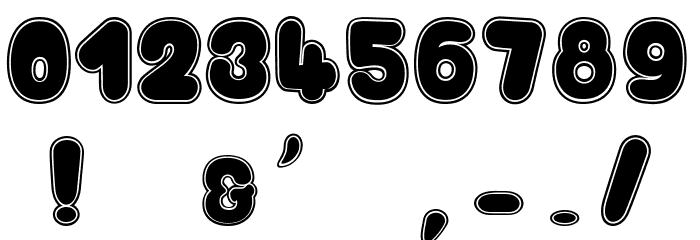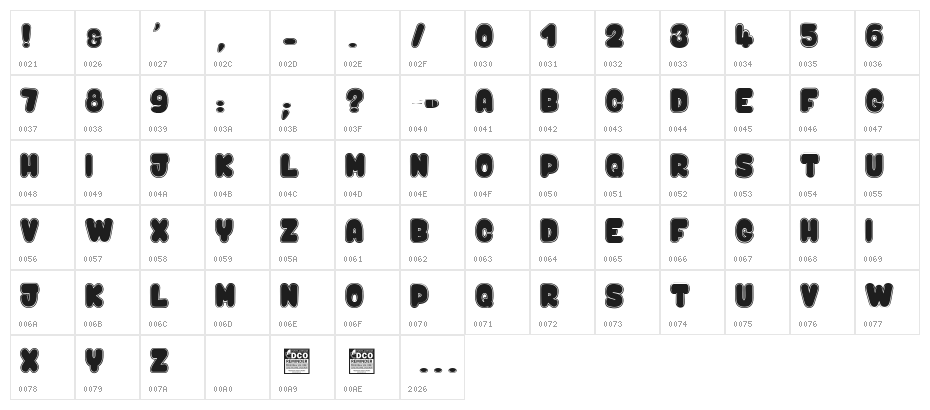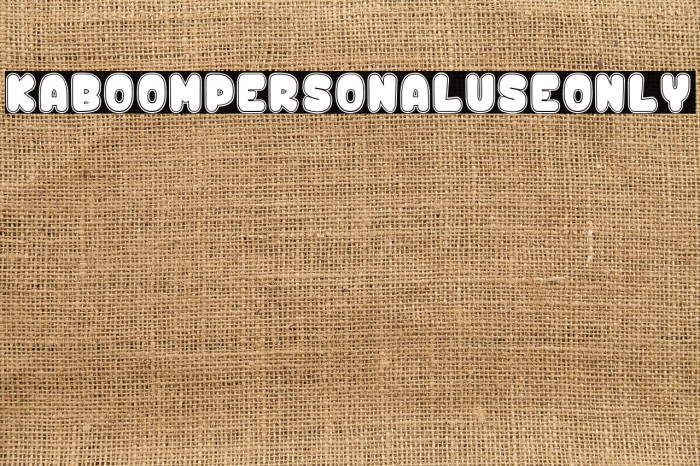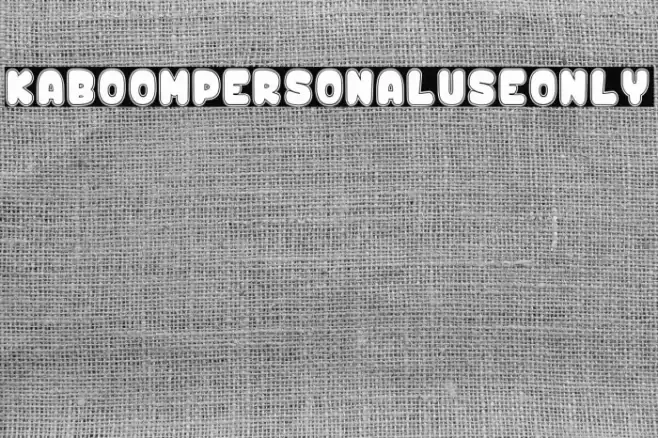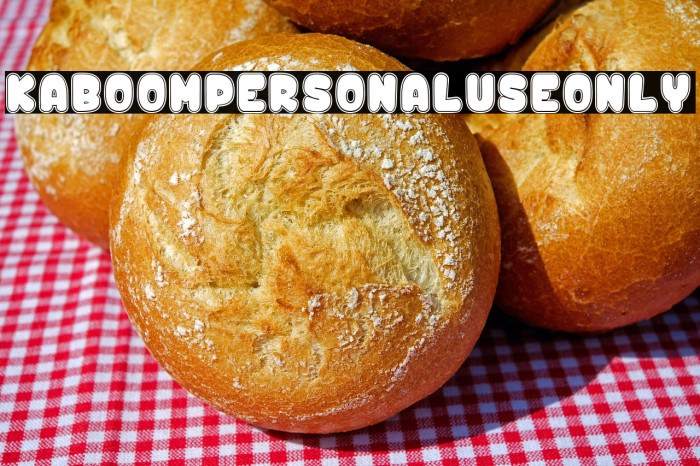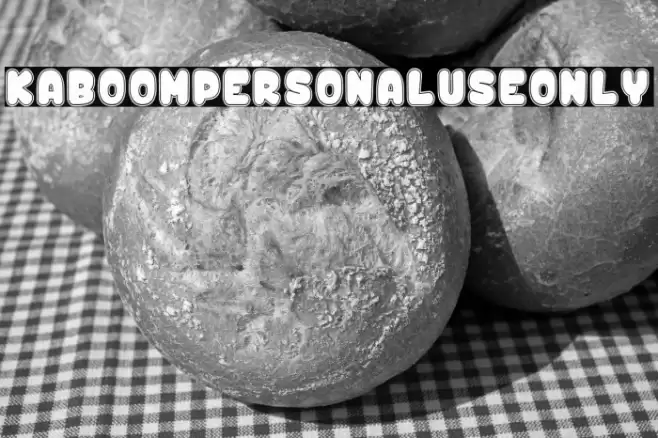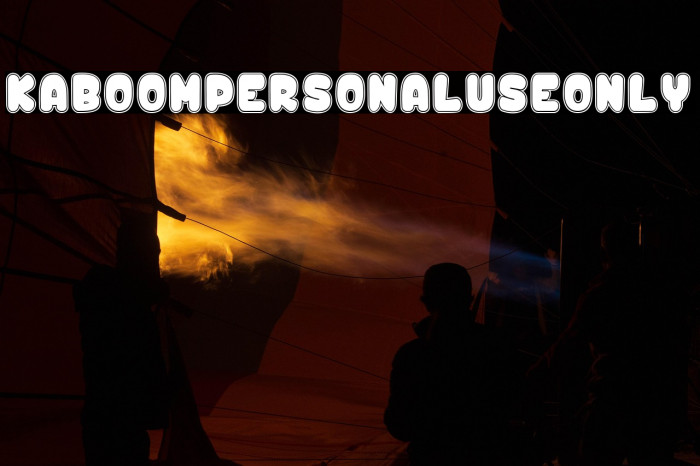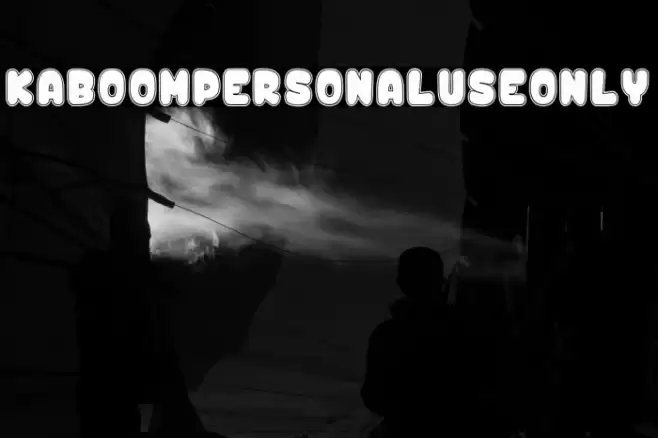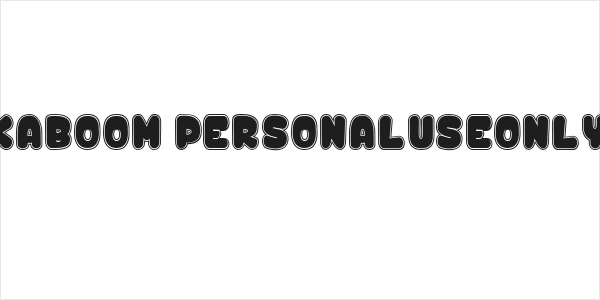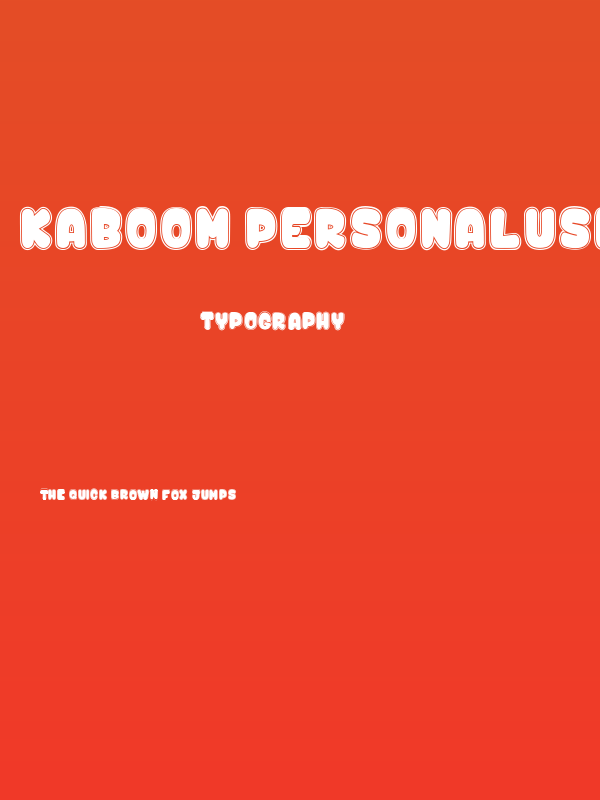
Kaboom_PersonalUseOnly Font
Kaboom_PersonalUseOnly Description
This playful and bold font features thick, rounded letters with a distinct outline that gives it a cartoon-like appearance. The characters are uniformly bold, with a consistent stroke width that enhances its playful and friendly vibe. The font's design is eye-catching, making it ideal for projects that require a fun and energetic look. Its rounded edges and bold style make it highly legible, even from a distance. The numbers and special characters are designed to match the playful style of the letters, ensuring a cohesive look across all text elements.
| Overall Style | Playful, Cartoonish |
| Proposed Projects | Ideal for children's books, comic strips, playful branding, party invitations, and any project that requires a lively and engaging typeface. |